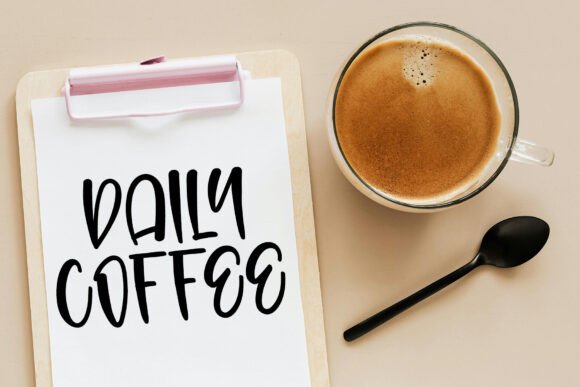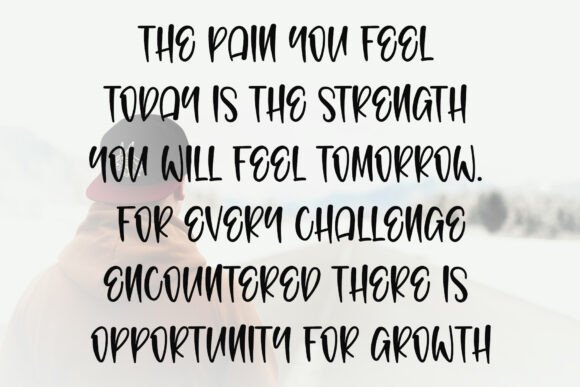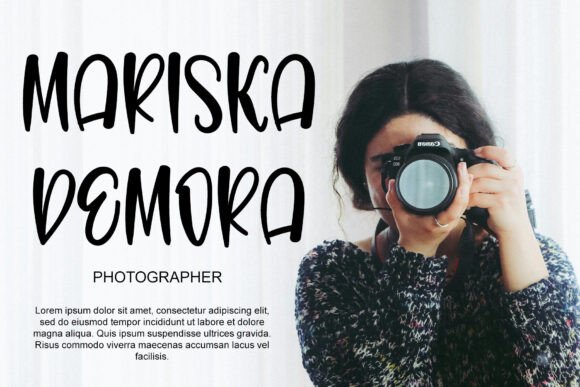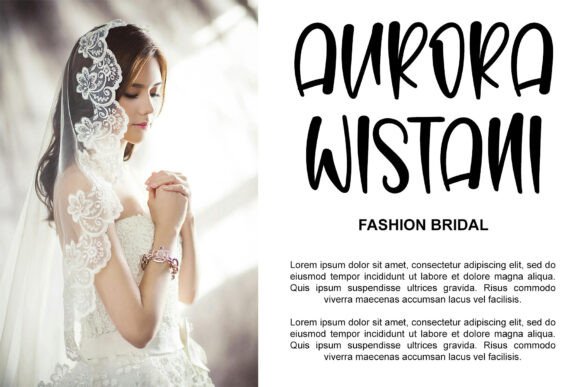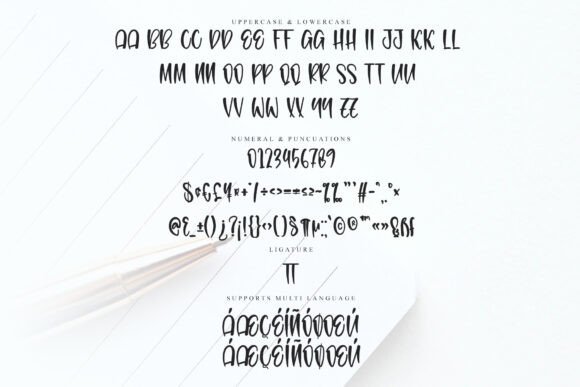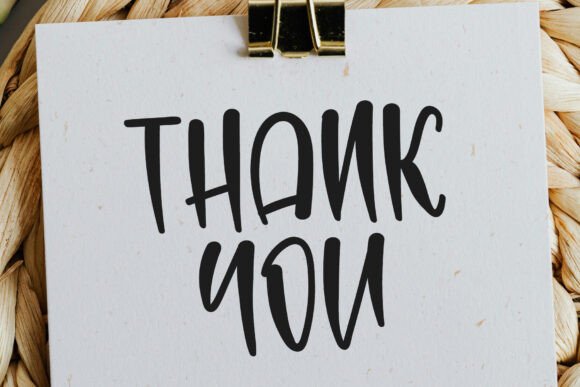
Introduction to Digital Highland Font
Have you ever been working on a creative project, pouring your heart and soul into it, only to realize that the perfect font is missing? That’s exactly what happened to me last week when I was designing a social media post for a client. I wanted something elegant, yet modern, to match the brand’s tone. After hours of browsing through design resources, I finally stumbled upon the Digital Highland Font – and my design came to life!
As a designer, I can attest that having access to high-quality fonts like the Digital Highland Font can be a game-changer. Not only does it add a touch of sophistication to your designs, but it also saves you time and effort in the long run. With its transparent background and free download option, this font is a valuable addition to any designer’s toolkit.
Key Features of Digital Highland Font
- High-quality digital font with a unique, modern design, perfect for creative projects
- Unique characteristics include a bold, modern aesthetic and a wide range of glyphs for creative expression
Honest Review: Digital Highland Font
I recently stumbled upon the Digital Highland Font, and I must say it’s a great addition to any designer’s toolkit. This free download is perfect for designers working on creative projects that require a unique touch.
What works well: ✨ The Digital Highland Font comes with a transparent background, making it easy to use in any design context. The high-quality design is also impressive, with clear and defined lines that give it a distinctive look. Additionally, the font is highly versatile, allowing designers to experiment with different styles and combinations.
What doesn’t work well: ⚠️ While the font is high-quality, it may not be suitable for all design projects. Some users may find the font a bit too bold or overbearing, which could detract from the overall design. Additionally, the font may not be as compatible with older design software, which could be a limitation for some users.
Overall, I’m impressed with the Digital Highland Font. It’s a valuable design resource that can add a unique touch to any creative project. With its high-quality design and transparent background, it’s definitely worth checking out.
The Digital Highland Font is ideal for use in creative projects such as logos, business cards, and brochures. Its high-quality design and transparent background make it perfect for use in digital design applications such as websites and social media graphics.